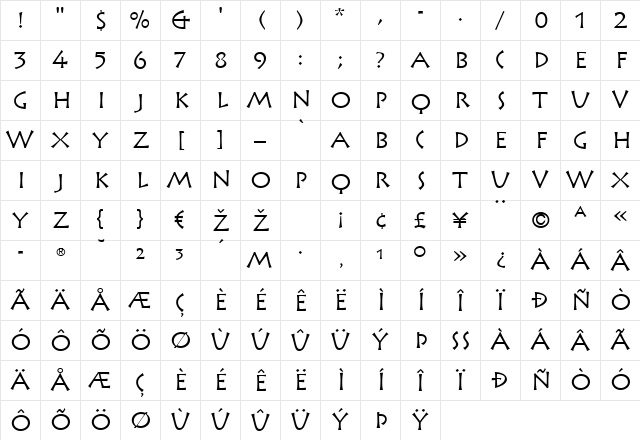
Rusticana LT Roman is a composed and adaptable typeface that performs quietly and consistently across a wide range of design contexts. Its slender proportions lend an understated elegance to any composition.